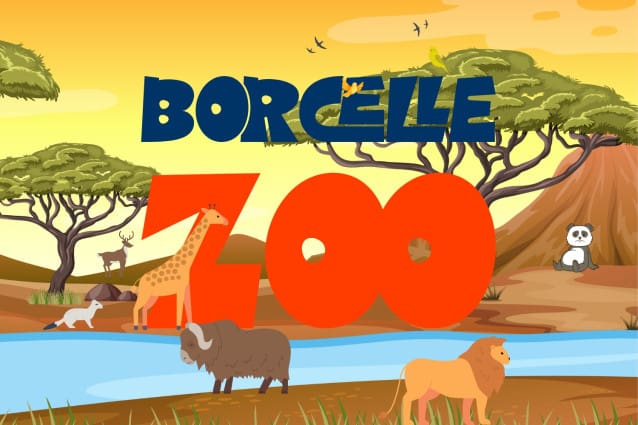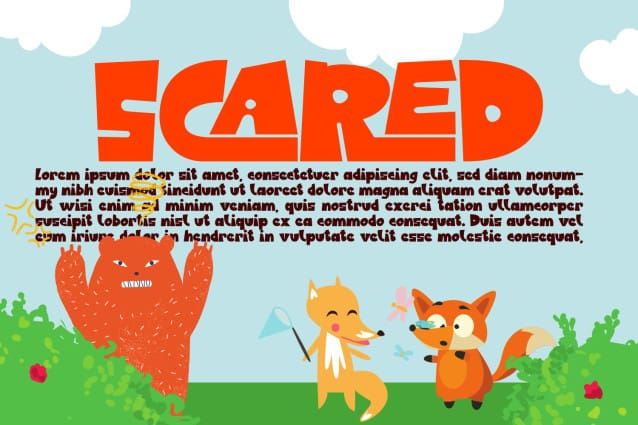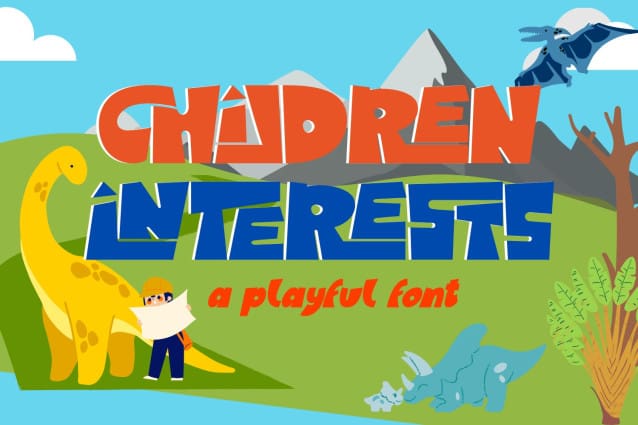
Children Interests Font
CHILDREN INTERESTS FONT is a quirky bold font with unique letterform. A typeface with fun and playful looks. This font perfectly made to be applied especially in logo, and the other various formal forms such as invitations, labels, logos, magazines, books, greeting / wedding cards, packaging, fashion, make up, stationery, novels, labels or any type of advertising purpose.
CHILDREN INTERESTS was built with OpenType features and includes 100 ligatures, alternate, numbers, punctuation, and it also supports other languages.
AC AD AL AN AR AS AT AU AV BE CA CE CH CO CT DE DI EA EC ED EE EL EM EN EP ER ES ET FE FO FR GE HA HE HI HO IE IC IL IN IO IR IS IT JU KE LA LE LI LL LO LY MA ME MI NC ND NE NG NO NT NS OC OF OM ON OO OP OR OT OU OW PA PR RA RD RE RI RO RS RT SE SH SI SO SS ST TA TE TH TI TO TR TT UM UN UR VE WI WO